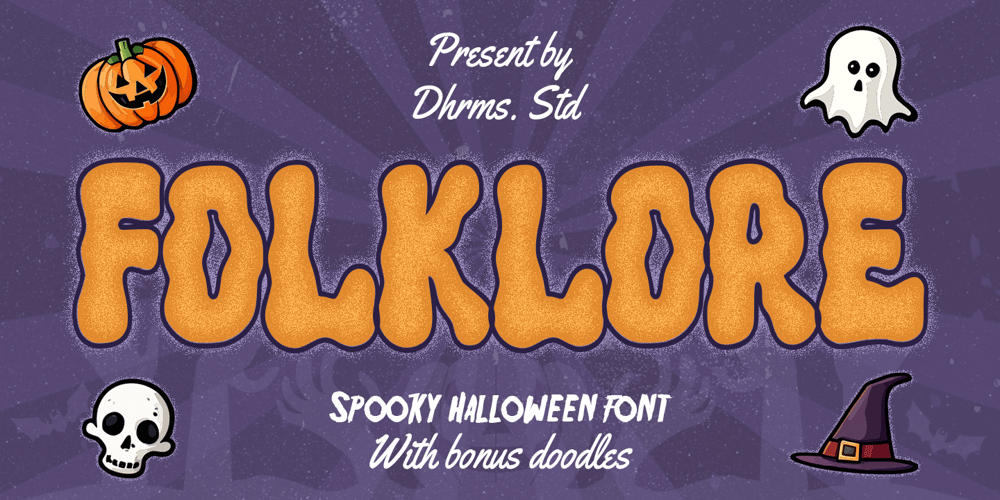
Folklore Font Family was designed by Ahmad Jamaludin and published by Ahmad Jamaludin. Folklore contains 2 styles and family package options. Just in time for your Halloween projects hopefully :)Say hello to Folklore! A font that’s all about spooky, ghoulish fun! With its charming all caps style and built-in speckly texture, Folklore brings a touch of whimsy to your creative projects. Plus, we’ve included an Outline version of the font as a little bonus.What’s Included? Folklore Main File Regular and Outline version Instructions (Access special characters, even in Cricut Design) Unique Letterforms Works on PC & Mac Simple Installations Accessible in Adobe Illustrator, Adobe Photoshop, Microsoft Word even Canva! PUA Encoded Characters. Fully accessible without additional design software. Multilingual Supports: (Afrikaans, Albanian, Catalan, Croatian, Czech, Danish, Dutch, English, Estonian, Finnish, French, German, Hungarian, Icelandic, Italian, Lithuanian, Maltese, Norwegian, Polish, Portuguese, Slovenian, Spanish, Swedish, Turkish, Zulu)Thank you,Dharmas Studio